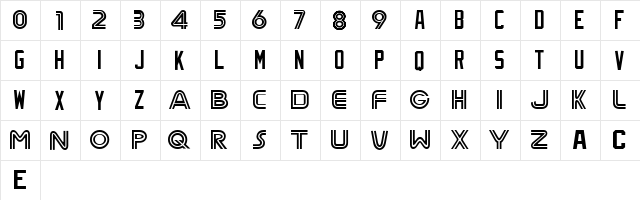
MLB Blue Jays Vintage
Design Context for MLB Blue Jays Typeface
MLB Blue Jays wears its vintage influences proudly, with letterforms that recall mid-century signage, classic packaging, and nostalgia-driven design.
Perfect for vintage-inspired branding, retro packaging, nostalgia campaigns, and period-accurate editorial design.
Font Pairing: Combine MLB Blue Jays with a simple slab or neutral sans — period-accurate companions reinforce the vintage feel without competing for attention.
Pro Tip: Use MLB Blue Jays for headlines and pull quotes rather than body copy — its personality is best appreciated in short, focused bursts.